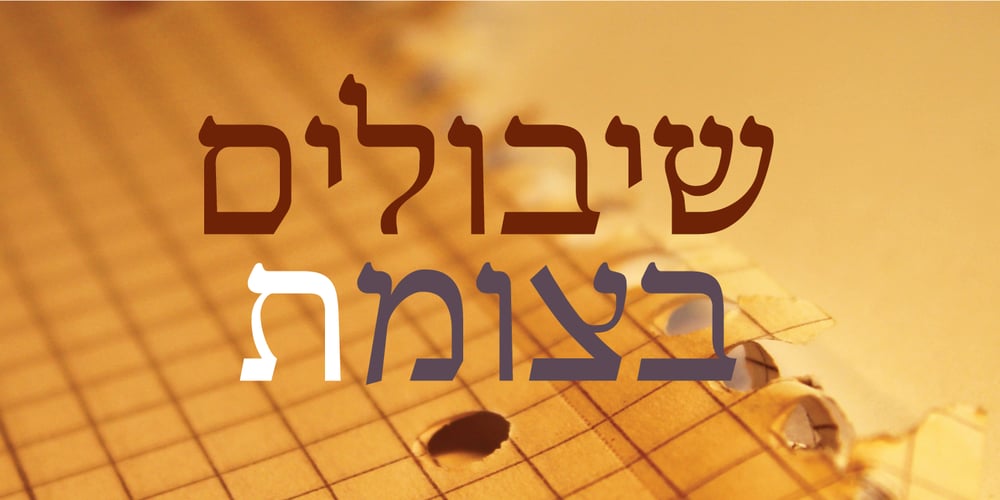
Malmala MF
Malmala MF font
Malmala MF Font Family was designed by Zvika Rosenberg and published by Masterfont. Malmala MF contains 1 styles and family package options. The robust impression of these titles will sure leave no doubt as to how serious this book is.